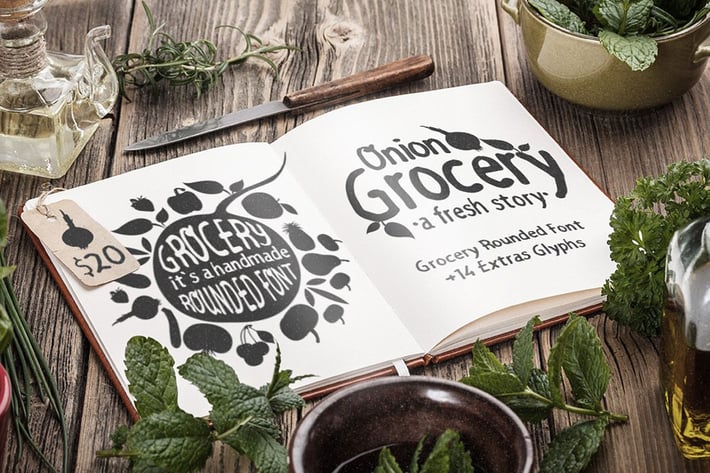
Grocery Rounded Font
Grocery Rounded Handmade Font. This is a handmade rounded font.
The font includes all letters uppercase and lowercase all punctuation signs and 14 vegetable / fruits glyphs.